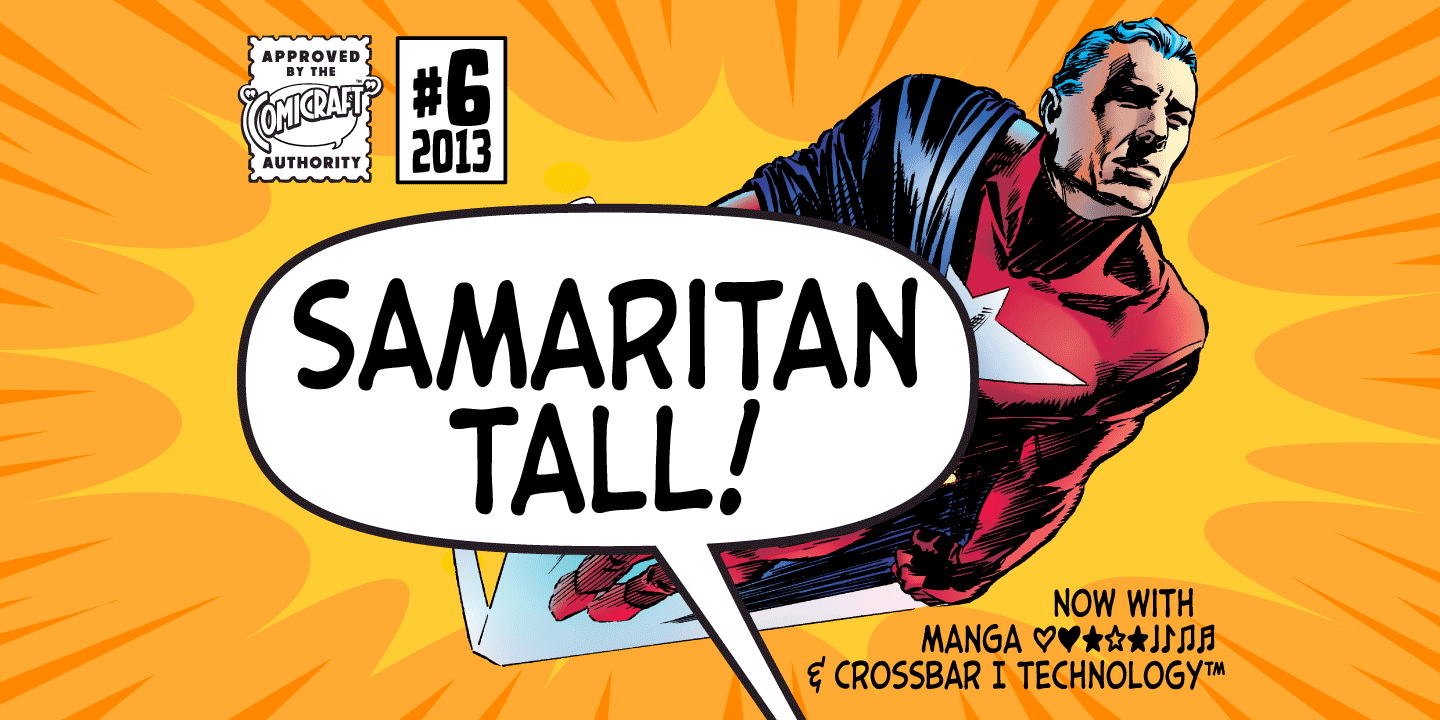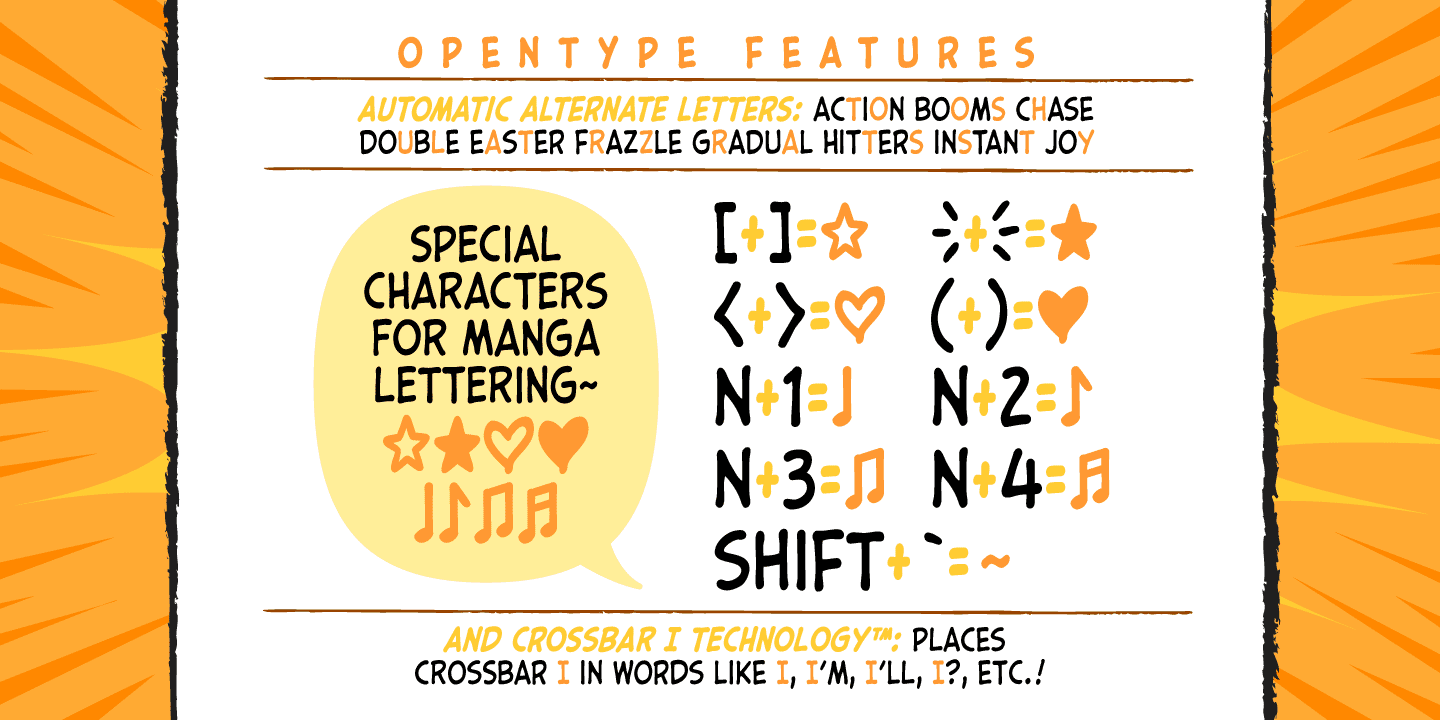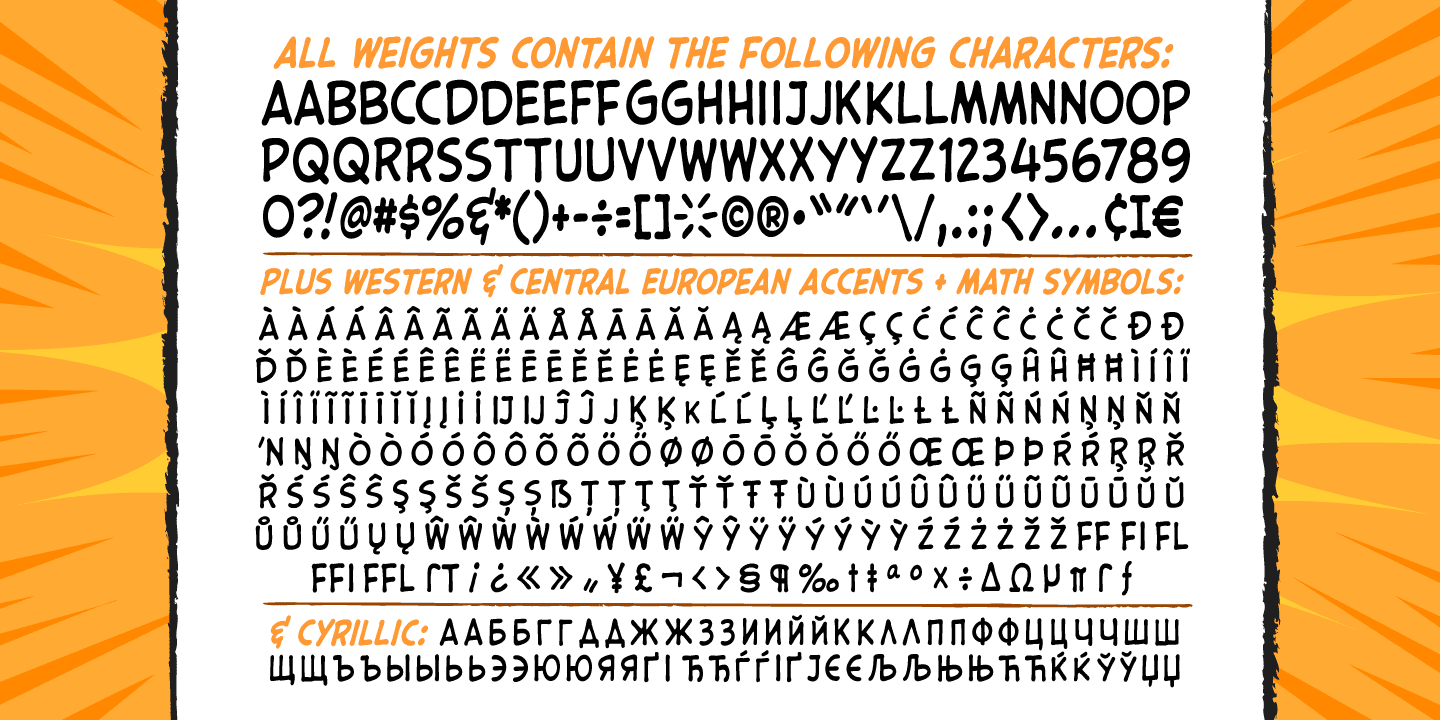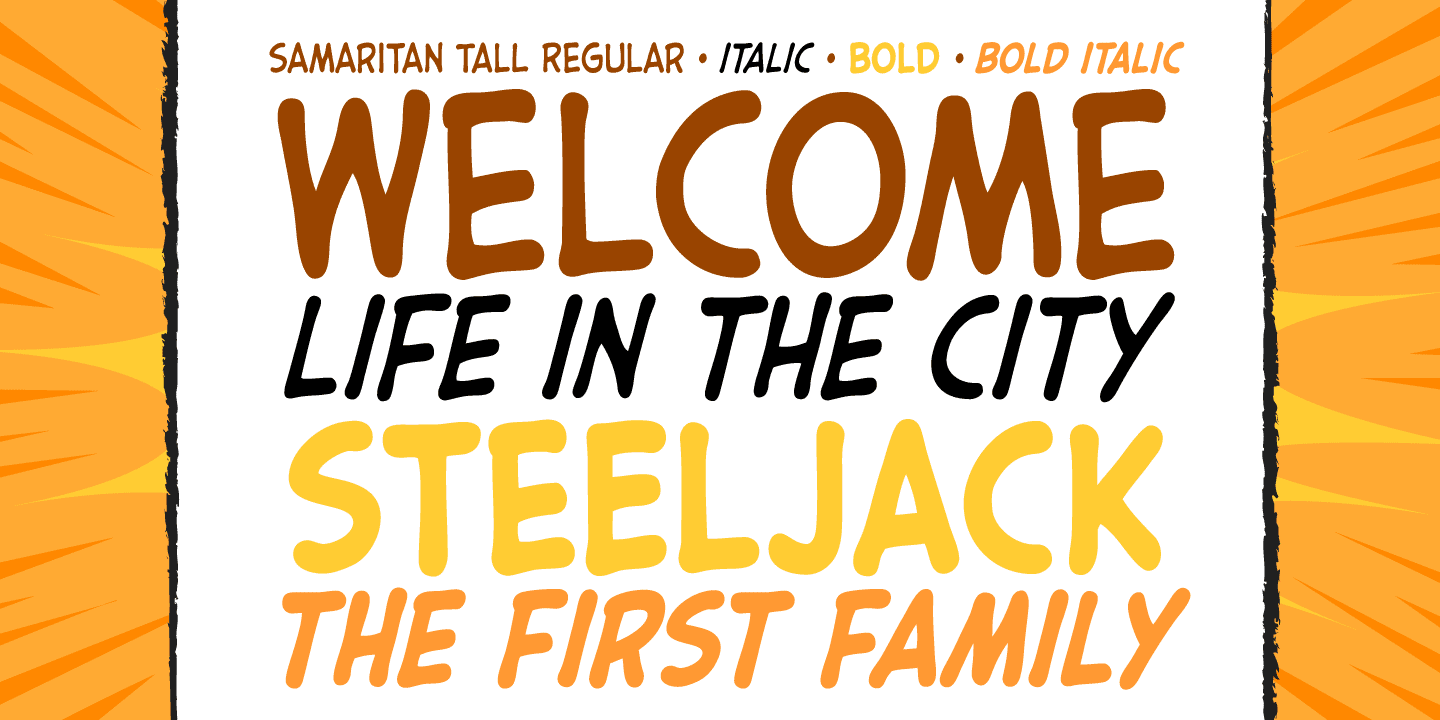
Samaritan Tall
Font Family by Comicraft Fonts
Fifteen hundred years from now, a man will be selected to go back in time to prevent a catastrophic event which turned his world into a dystopia. Sent back in time, he was enveloped in empyrean fire, the strands of energy that make up time itself.
Crash-landing near Astro City in late 1985, he learned how to master and channel the empyrean forces that had suffused his body -- finally learning to control his powers in time to prevent the destruction of the Space Shuttle Challenger, the event he had been sent to avert. He described himself to journalists as nothing more than "a Good Samaritan", and has continued to help his fellow man in Astro City ever since.
John JG Roshell has also been struggling with the empyrean challenge of fitting all of Kurt Busiek's Astro City dialogue into balloons with the regular Samaritan font, so he created the Samaritan Tall font to help his fellow comic book letterers! It's kinda the same thing really.